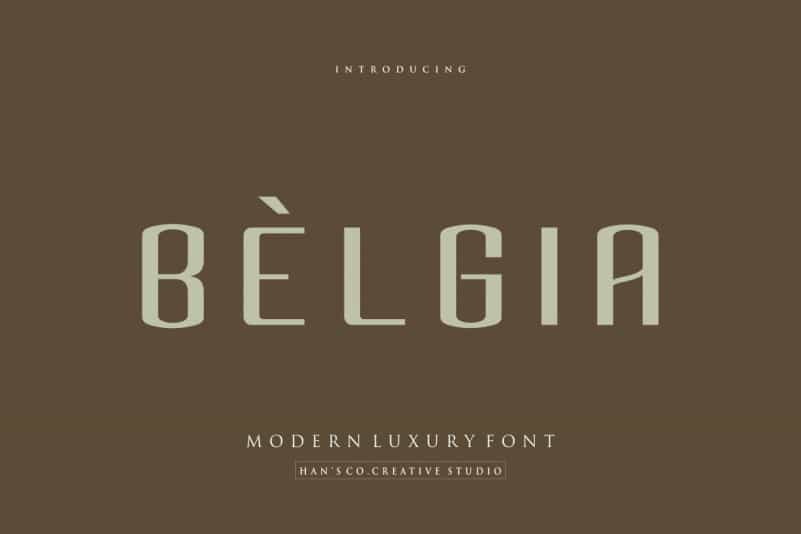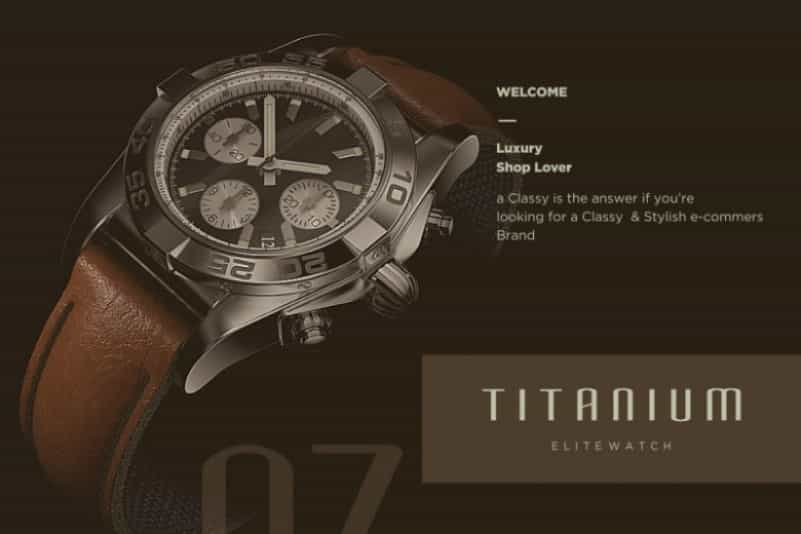
Belgia Font is the stylish san serif font with full and high accuracy to establish the classy font style. It wholly encapsulates opulent yet timeless in a contemporary and simple fashion. This font will be suitable for logo design, packaging or invitation cards that need a little touch of elegance, manly and modern look.